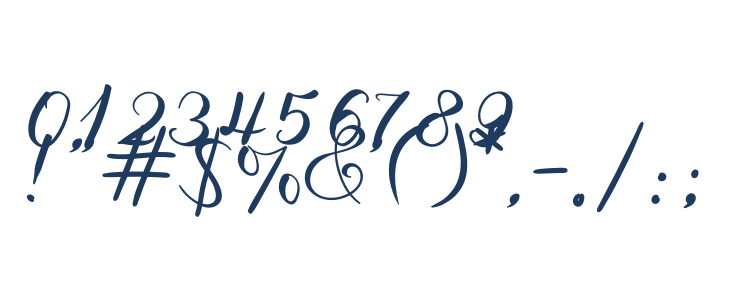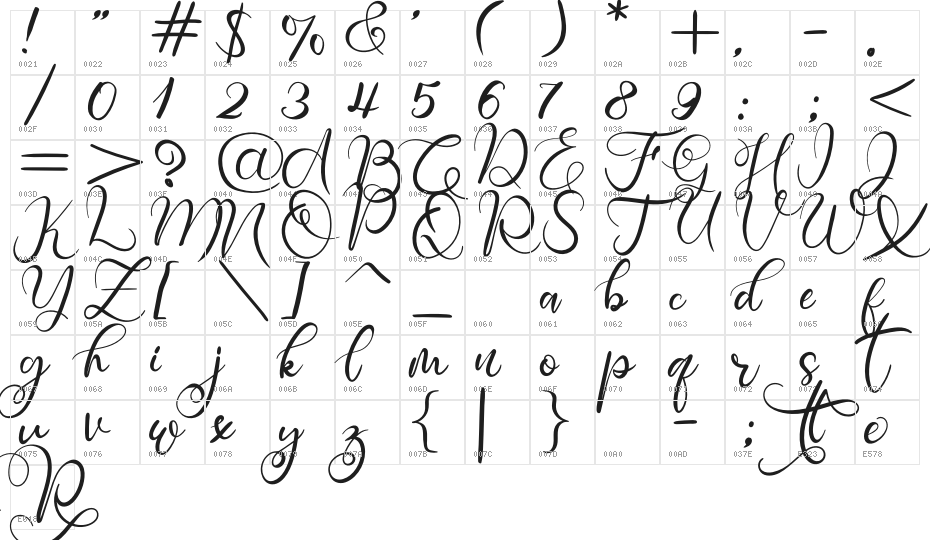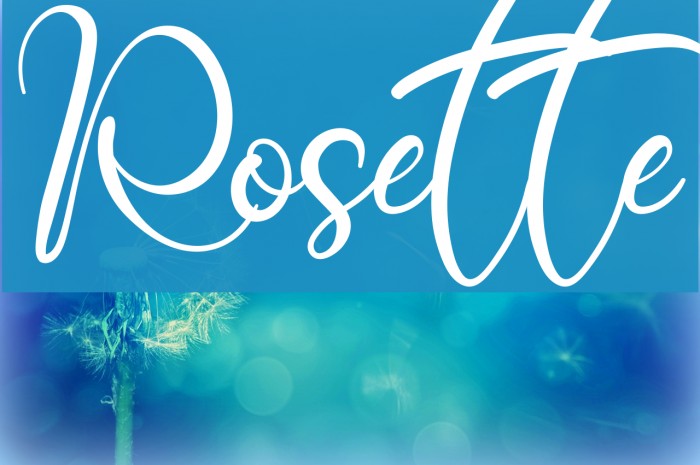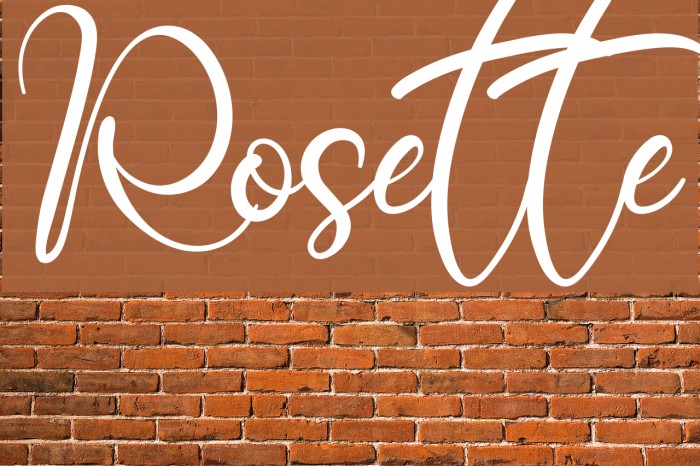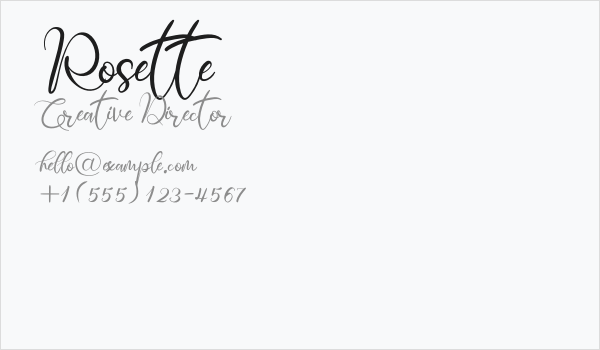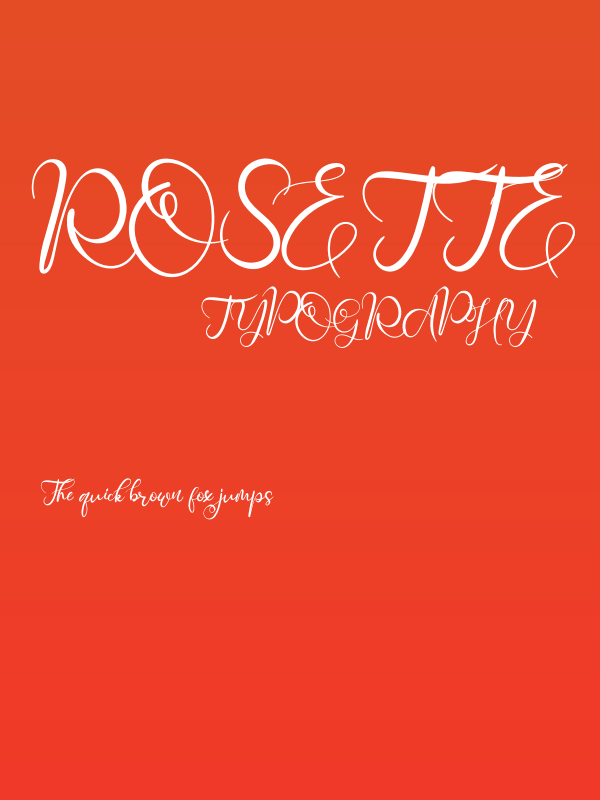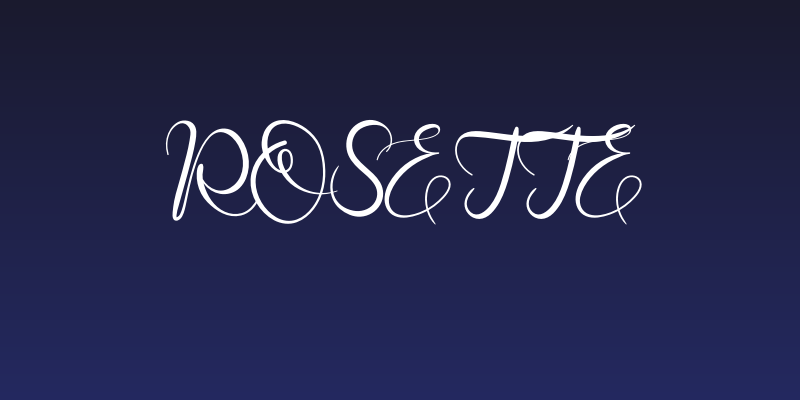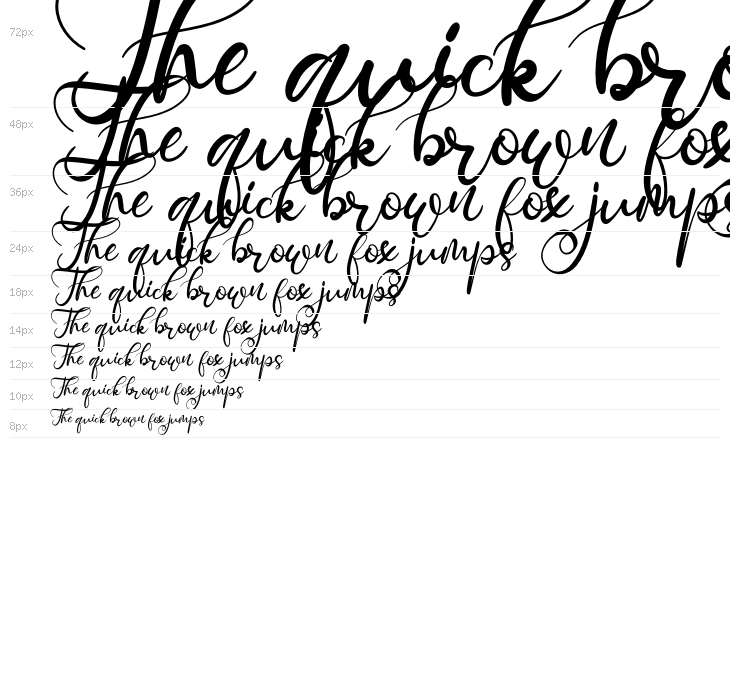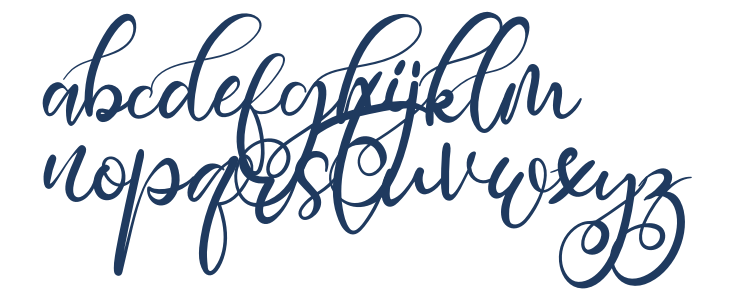
Rosette Font
Rosette Description
This font exudes elegance and sophistication with its flowing, cursive style. The letters are intricately designed with smooth, sweeping curves and delicate loops, giving it a refined and graceful appearance. The uppercase letters are particularly ornate, featuring elaborate flourishes that add a touch of grandeur. The lowercase letters maintain a consistent style, with a harmonious balance between thick and thin strokes, enhancing readability while retaining an artistic flair. The numerals and special characters are crafted with the same attention to detail, ensuring a cohesive look across all elements. This font is ideal for projects that require a touch of elegance and class.
| Overall Style | Elegant, Sophisticated |
| Proposed Projects | Wedding invitations, luxury branding, elegant stationery, high-end packaging. |